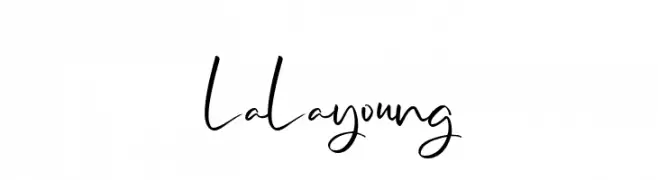
( Fonts by Nirmana Visual )
A sophisticated, flowing script font with an elegant, handwritten style.
( Fonts by Nirmala Creative )
A playful, elegant script font with a handwritten feel and smooth, fluid strokes.
( Fonts by Nirmala Creative )
A playful, elegant script font with a handwritten style.
( Fonts by Nirmala Creative )
A playful, flowing script font with elegant loops and smooth cursive strokes.
( Fonts by Vunira Design )
A graceful script font with fluid, interconnected strokes and elegant curves.
( Fonts by Nirmala Creative )
A playful, casual handwritten font with smooth, flowing curves.
( Fonts by Vunira Design )
A lively, cursive handwritten font with elegant and flowing letterforms.
( Fonts by Vunira Design )
A modern, cursive font with a natural handwritten style.
( Fonts by Vunira Design )
A bold, dynamic handwritten font with playful, flowing strokes.
( Fonts by Nirmala Creative )